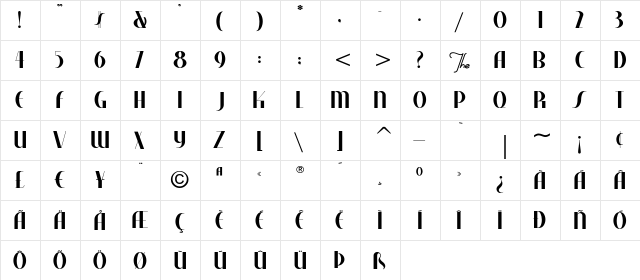
Studebaker Regular
Design Context for Studebaker Typeface
Studebaker is a composed and adaptable typeface that performs quietly and consistently across a wide range of design contexts.